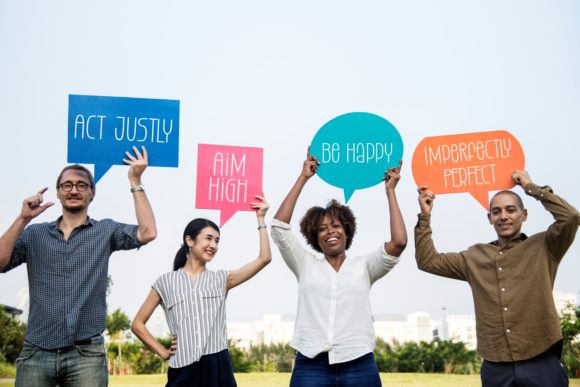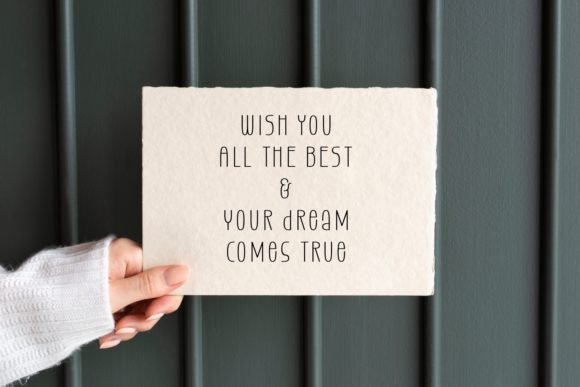
Ah, the eternal quest for the perfect font! I still remember the time I was working on a project for a client who wanted a simple, yet elegant design. I spent hours scouring through font libraries, trying to find something that would match their vision. And then, I stumbled upon Beautiful & More Font. It was love at first sight! ✨
This beautiful sans serif font has been a game-changer for me, and I’m excited to share my experience with you. In this article, we’ll dive into the world of Beautiful & More Font, exploring its features, uses, and some helpful tips and tricks.
A First Impression: What Makes Beautiful & More Font Special
Beautiful & More Font is a simple and thin lettered sans serif font that’s both minimalist and versatile. Its clean lines and elegant curves make it perfect for a wide range of formal and informal designs. Whether you’re working on a logo, a brochure, or a social media post, this font is sure to impress.
So, what makes Beautiful & More Font so special? Here are a few things that I love about this font:
- ✨ Clean and elegant design: Beautiful & More Font has a sleek and sophisticated look that’s perfect for designs that require a touch of elegance.
- ✅ Versatile: This font is suitable for a wide range of designs, from formal to informal, and can be used for both digital and print projects.
- 💡 Easy to read: The font’s clean lines and simple design make it easy to read, even at small sizes.
An Honest Review: The Good, the Bad, and the Quirky
Like any font, Beautiful & More Font has its strengths and weaknesses. Here’s an honest review of what I love and what I’ve noticed as potential quirks:
- ✨ Consistency: The font is consistent in its design, making it perfect for large blocks of text.
- ✅ Flexibility: Beautiful & More Font can be used for a wide range of designs, from headings to body text.
While Beautiful & More Font is an excellent choice, there are a few things to keep in mind:
- 🤔 Limited character set: Some users have reported that the font’s character set is limited, which can be a problem if you need to use special characters.
- ⚠️ Not suitable for body text: While the font is easy to read, it’s not the best choice for long blocks of body text. It’s better suited for headings and titles.
Exploring OpenType Features, Glyphs, and Stylistic Alternates
Beautiful & More Font comes with a range of OpenType features, glyphs, and stylistic alternates that can enhance your design. Here are a few tips on how to access these features:
- OpenType features: These features allow you to customize the font’s appearance, such as ligatures, fractions, and stylistic sets.
- Glyphs: Glyphs are special characters that can add visual interest to your design. You can access glyphs by using the Glyphs panel in Adobe Photoshop or Illustrator.
- Stylistic alternates: Stylistic alternates offer alternative designs for certain characters, allowing you to create a unique look for your text.
The Designer Inspiration Behind Beautiful & More Font
Beautiful & More Font was designed with the goal of creating a simple, yet elegant sans serif font. The designer aimed to create a font that would be versatile and easy to read, making it perfect for a wide range of designs.
Q: Is Beautiful & More Font easy to read?
A: Yes, Beautiful & More Font is easy to read, even at small sizes. Its clean lines and simple design make it perfect for designs that require a clear and concise message.